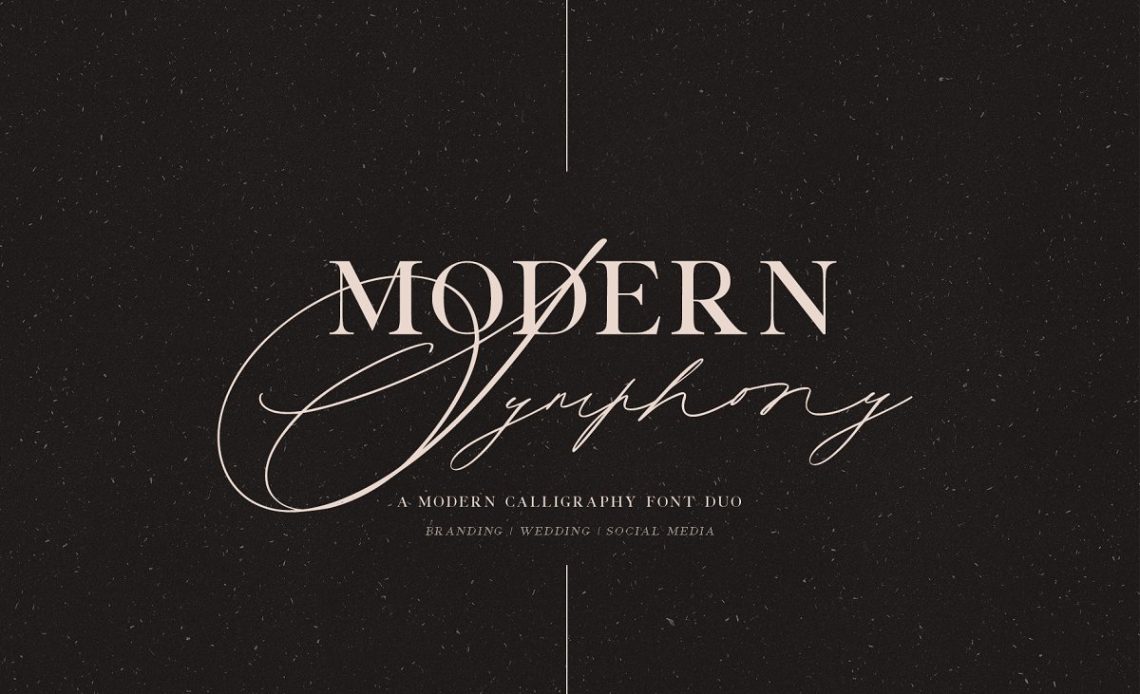
Introducing the Modern Symphony Font Duo - the perfect serif font family for your website header! Created by Oksana Petrenko, this trending and elegant font pair exudes a unique style and luxury look that will make your design stand out.
The Modern Symphony Font Duo includes two stunning fonts: the Modern Symphony Script and the Modern Symphony Serif. The elegant Script font boasts three full sets of gorgeous uppercase and lowercase letters, numerals, punctuation, and a large range of ligatures to perfectly recreate natural calligraphy. The Serif font is a classy high contrast font that contains only uppercase characters, numerals, and punctuation.
This font duo is perfect for creating wedding invitations, cards, and feminine branding that will captivate your audience. It is included in the new Sans & Serif Font Bundle, which is available now on CreativeMarket.